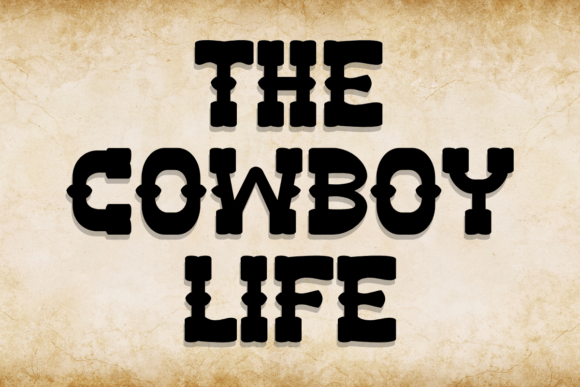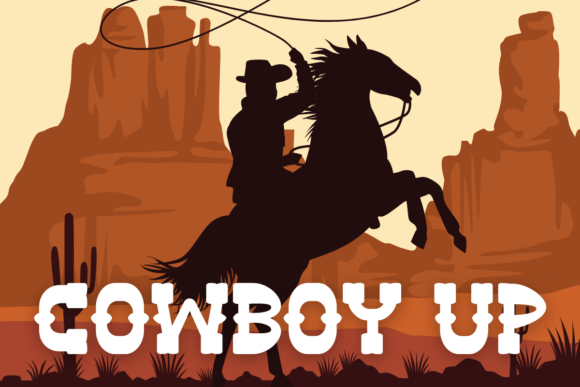
Howdy Cowboy Font
Howdy Cowboy is a bold serif font that is vintage and unique. The wide characters and bold serifs make this font ideal for eye-catching designs. You can use it for headlines, t-shirt typography, banners, product labels, and much more.